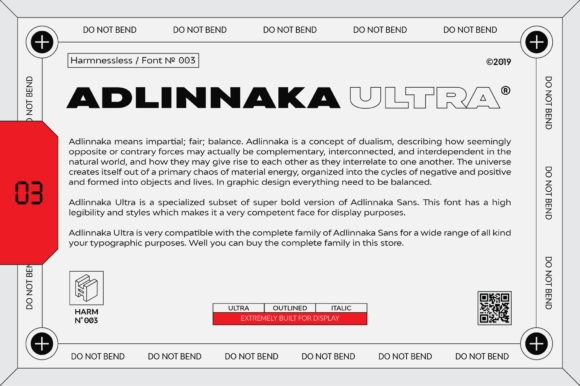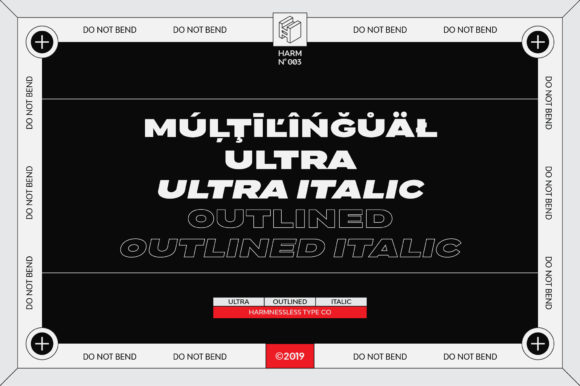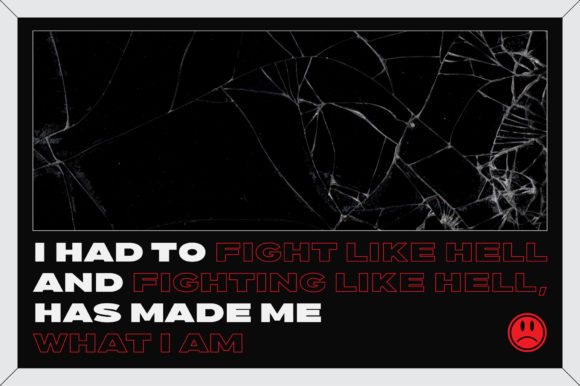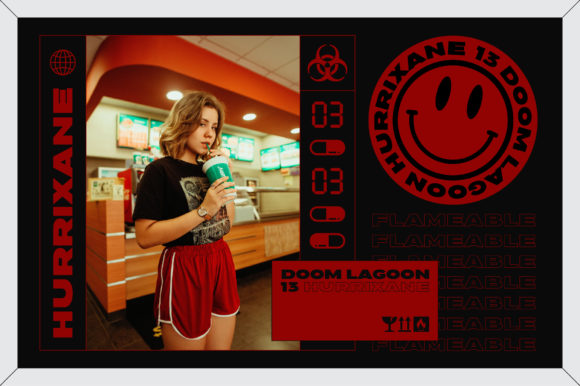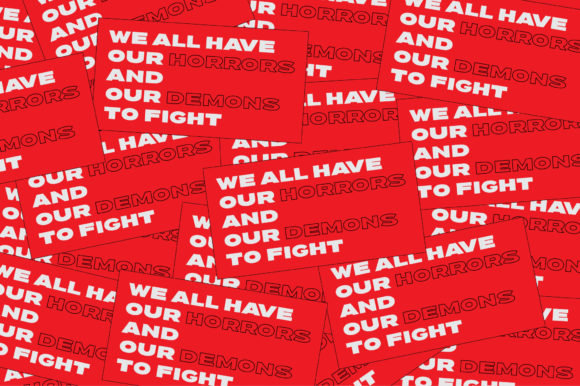
Introducing Adlinnaka Ultra Font: Elevate Your Designs with a Modern Twist
In the world of design, fonts play a crucial role in conveying the message and aesthetic of a project. A well-chosen font can make all the difference between a good design and a great one. If you’re a designer or crafter looking to add a touch of modernity to your work, look no further than Adlinnaka Ultra Font. This fun and unique display font is designed to bring a sleek feel to any design project, making it a must-have for anyone looking to elevate their typography.
What is Adlinnaka Ultra Font?
Adlinnaka Ultra Font is a display font that boasts a modern vibe, perfect for designers and crafters who want to add a fresh touch to their work. Its sleek and unique design makes it an excellent choice for a wide range of projects, from branding and advertising to packaging and digital media. With Adlinnaka Ultra, you can add a professional and sophisticated feel to your designs, setting them apart from the rest.
Key Features of Adlinnaka Ultra Font
- Modern Design: Adlinnaka Ultra Font features a modern design that is both sleek and sophisticated, making it perfect for designers who want to add a touch of elegance to their work.
- Unique Style: This font boasts a unique style that sets it apart from other fonts, ensuring that your designs stand out from the crowd.
- Display Font: Adlinnaka Ultra is a display font, making it perfect for headlines, titles, and other display text.
- Easy to Read: Despite its modern and sleek design, Adlinnaka Ultra is easy to read, making it perfect for use in a wide range of projects.
How to Use Adlinnaka Ultra Font
Adlinnaka Ultra Font is versatile and can be used in a wide range of projects, including:
- Branding and Advertising: Use Adlinnaka Ultra to create eye-catching logos, ads, and marketing materials that showcase your brand’s personality.
- Packaging Design: Add a touch of modernity to your packaging designs with Adlinnaka Ultra, making your products stand out on store shelves.
- Digital Media: Use Adlinnaka Ultra in your digital media projects, such as social media graphics, website headers, and more.
- Crafting and DIY Projects: Adlinnaka Ultra is also perfect for crafters and DIY enthusiasts who want to add a professional touch to their projects, such as handmade cards, invitations, and more.
Benefits of Using Adlinnaka Ultra Font
By using Adlinnaka Ultra Font in your designs, you can:
- Elevate Your Designs: Add a touch of modernity and sophistication to your designs, making them more visually appealing.
- Stand Out from the Crowd: With its unique style, Adlinnaka Ultra helps your designs stand out from the crowd, making them more memorable.
Adlinnaka Ultra Font is a fun and unique display font that can elevate any design project with its modern vibe. Its sleek and sophisticated design makes it perfect for designers and crafters who want to add a touch of elegance to their work. With its versatility and ease of use, Adlinnaka Ultra is a must-have font for anyone looking to take their designs to the next level.